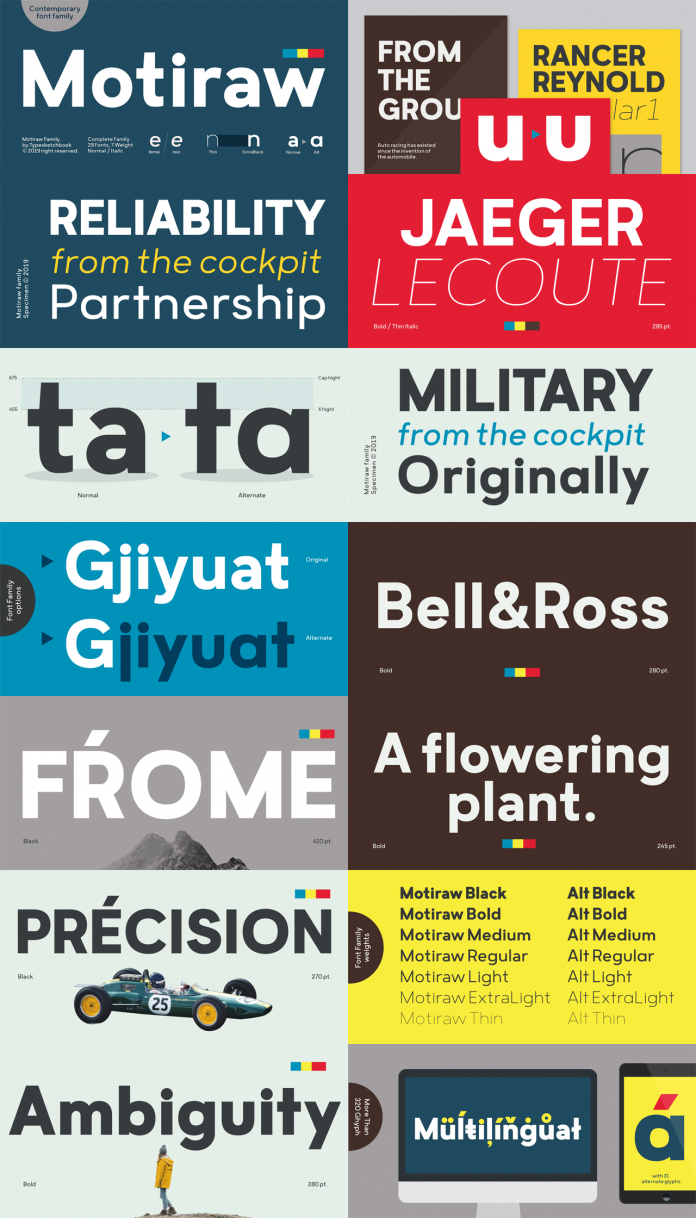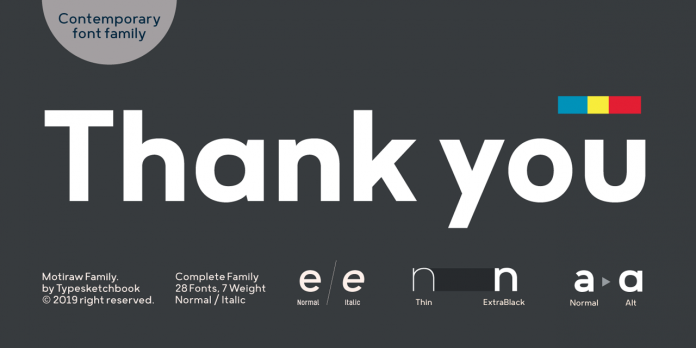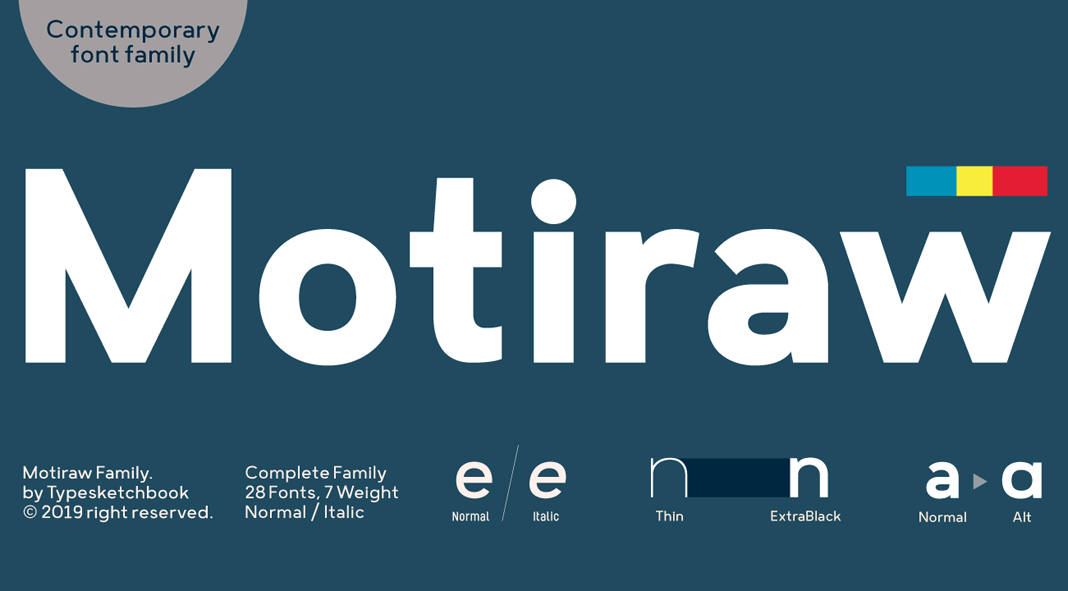
Motiraw, a contemporary sans-serif font family from Typesketchbook.
Recently published by foundry Typesketchbook, Motiraw is a new sans serif font family consisting of 28 styles including weights ranging from thin to black, matching Italics, and alternate options. This straightforward sans typeface is a great choice for plenty of typographic applications. Whether on-screen or printed matters, Motiraw works great for both headlines and long text sections. The family supports multiple languages and is available as both desktop and web font.